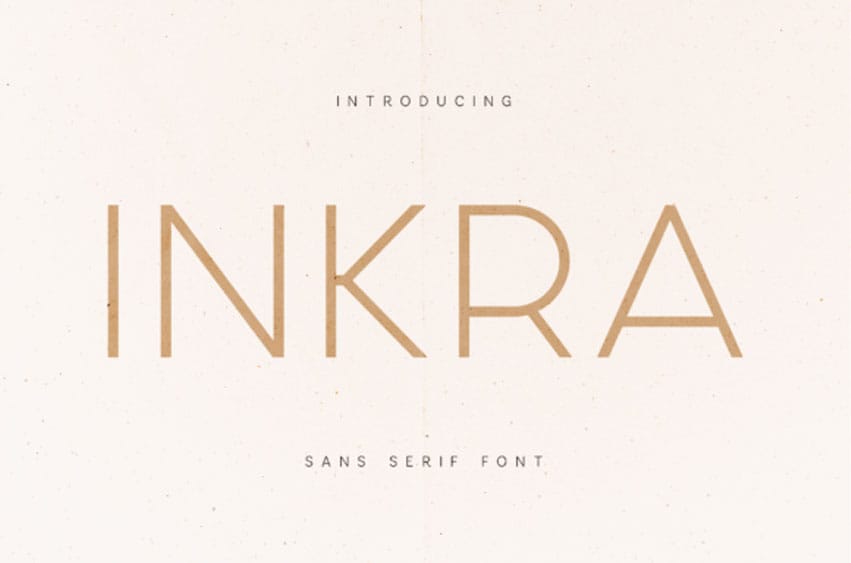
Inkra Font is a clean and contemporary sans serif typeface designed with simplicity and balance in mind. Its minimalist construction allows the typeface to adapt effortlessly to branding, editorial layouts, digital interfaces, and modern visual identities.
Inkra brings together precision and subtle warmth, making it a versatile sans serif font suitable for both professional and creative design projects.